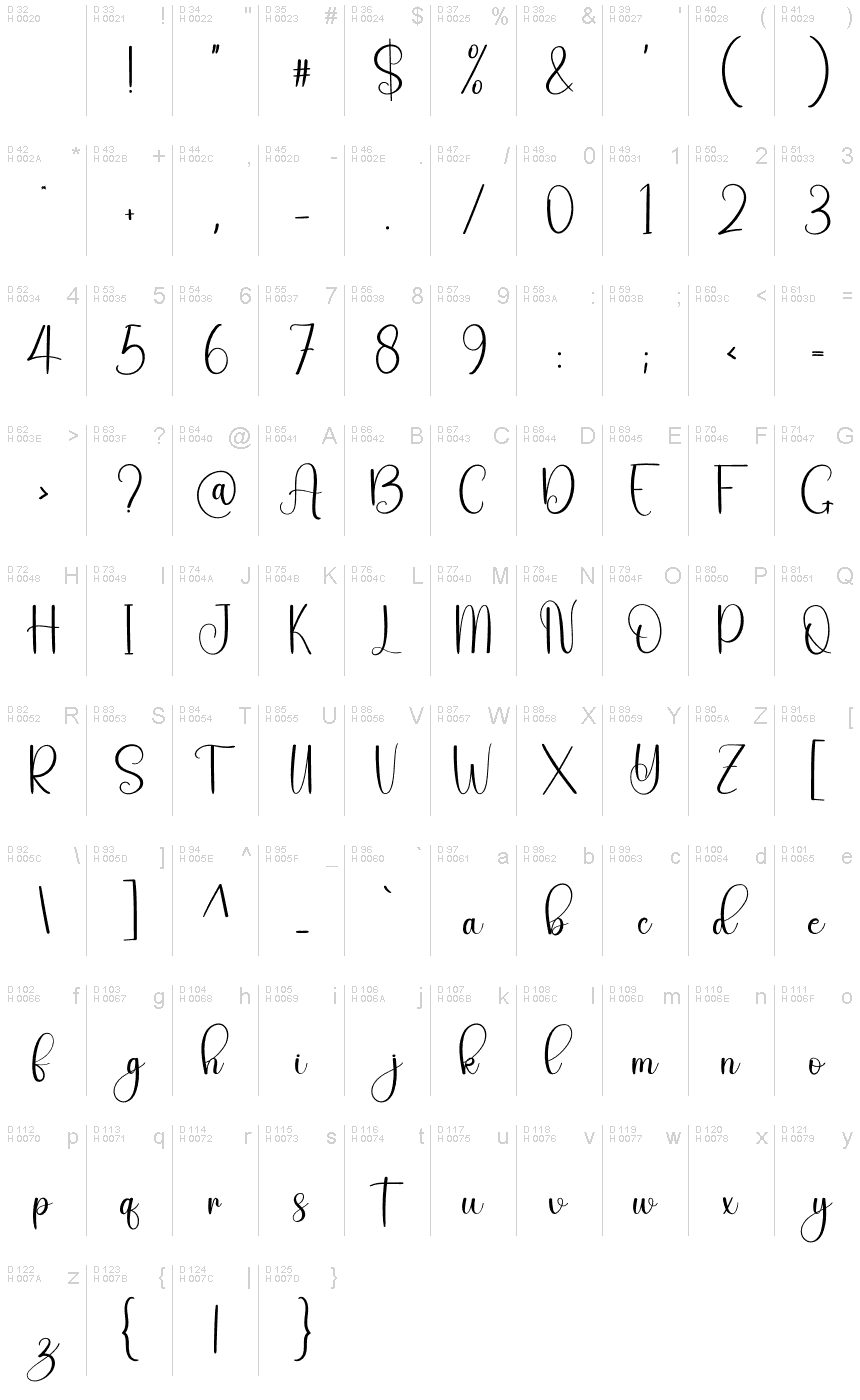
Shaby
Shaby, created by Harlek Studio, is a captivating calligraphy font.
Its semi-light weight delicately balances elegance with readability, making it perfect for wedding invitations, love letters, and romantic branding materials. With its graceful strokes and flowing curves, Shaby brings an air of sophistication to any project. Whether used for fashion magazines or luxury product packaging, this font effortlessly adds a touch of glamour and refinement.
Embrace the timeless beauty of calligraphy with Shaby and create stunning designs that leave a lasting impression.